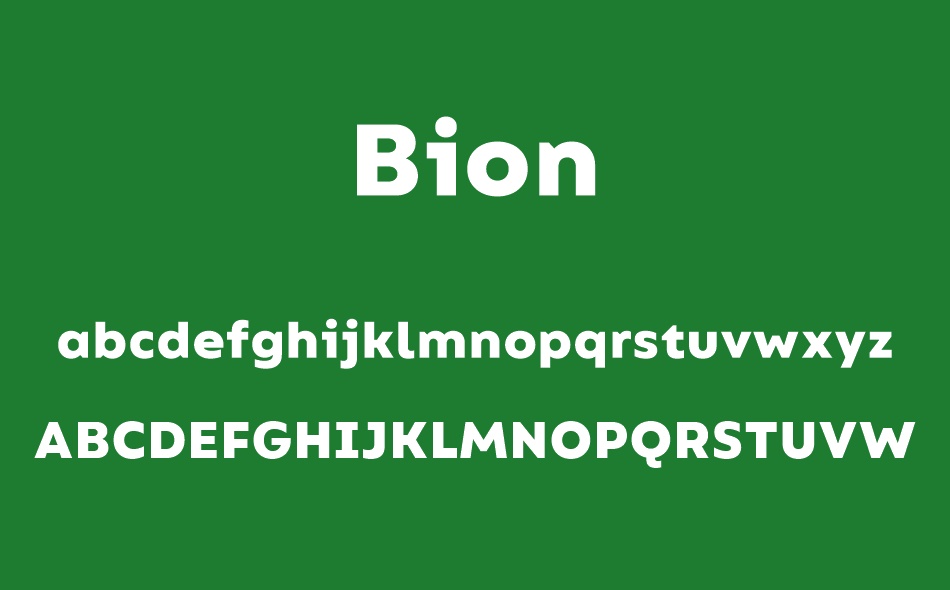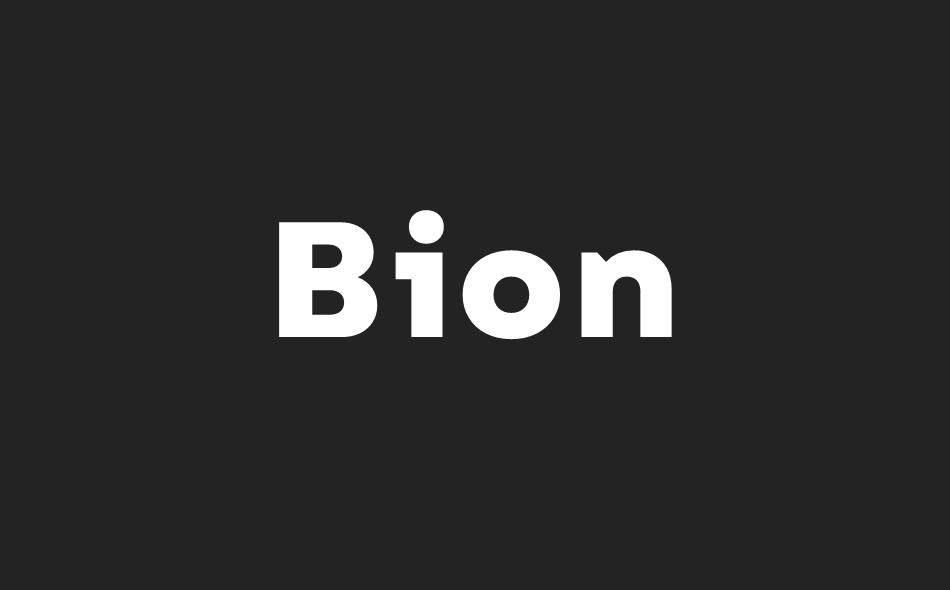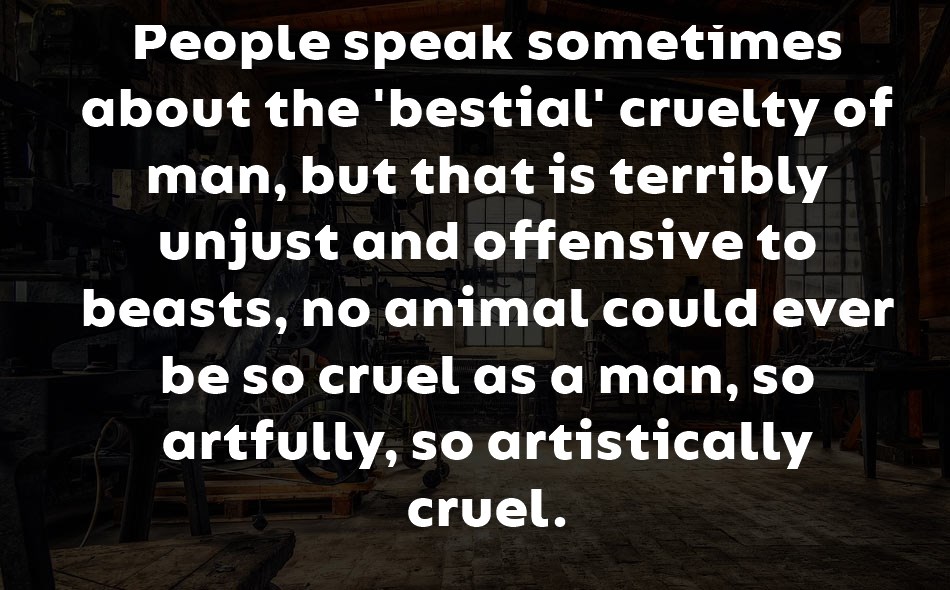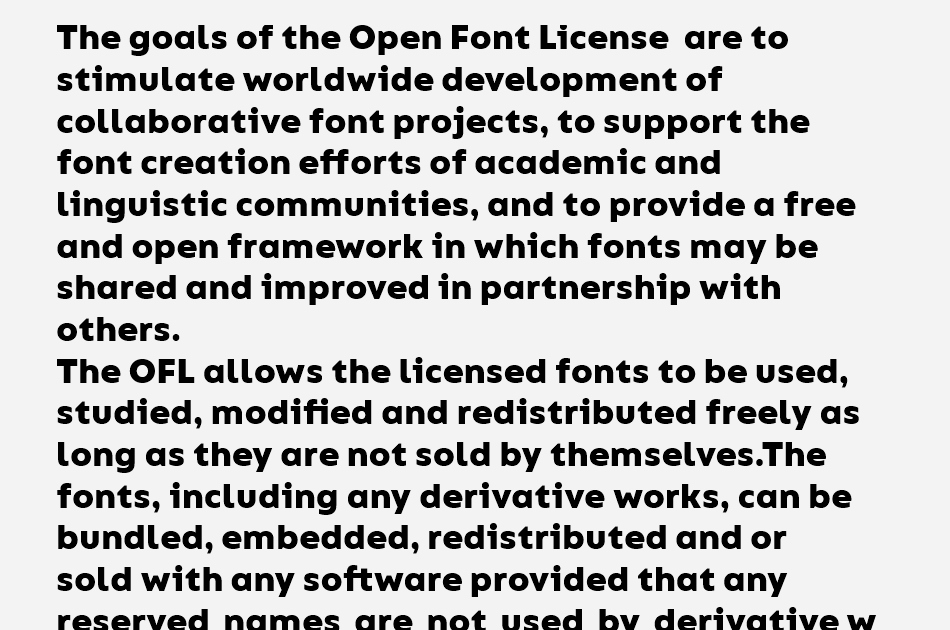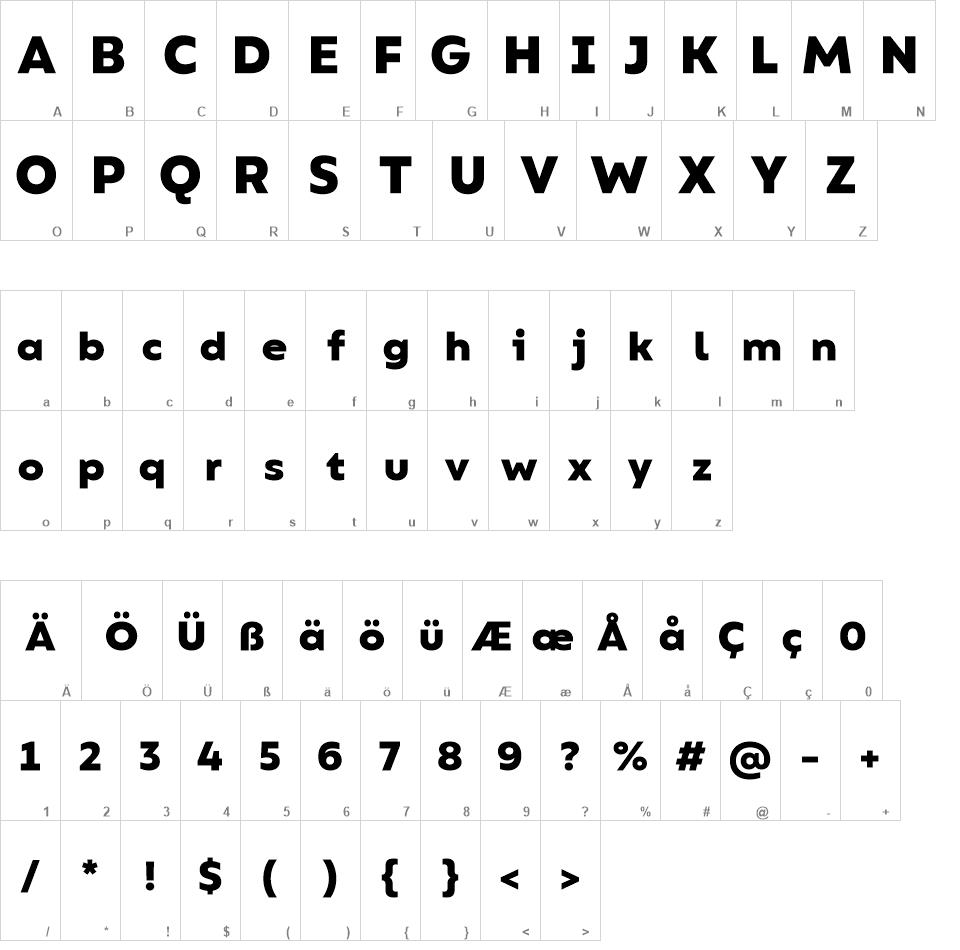
Bion font
Bion is a contemporary geometric sans serif with a down-to-earth attitude.
It is distinguished by a high x-height, vertically cut terminals, and a minimal stroke contrast, giving it a distinctive, sharp look that is both timeless and universally appealing.
Bion comes with 40 weights in a single variable file, ranging from Hairline to Black. We also included Upright, Italic, and Condensed variations to give you a fresh and diverse look for poster and title designs.
Whatever message you want to get across, Bion has you covered - with support for 220 languages and 1,220 glyphs in total, as well as Extended Latin, Cyrillic and Greek scripts and an exhaustive list of typographic symbols.
Our latest typeface also arrives packed full of OpenType features, including an alternative glyph set that will transform the way your text looks, giving it a more squarish appearance and offering additional visualization options.
The Bion type family also includes an extensive set of standard and discretionary ligatures, tabular and small figures, fractions, and language localizations. These features work in static and variable fonts alike, providing a ready-made solution to all your advanced typographic needs.
This functional, pragmatic typeface is clean and easily readable, making it an ideal choice for both print and on-screen media.